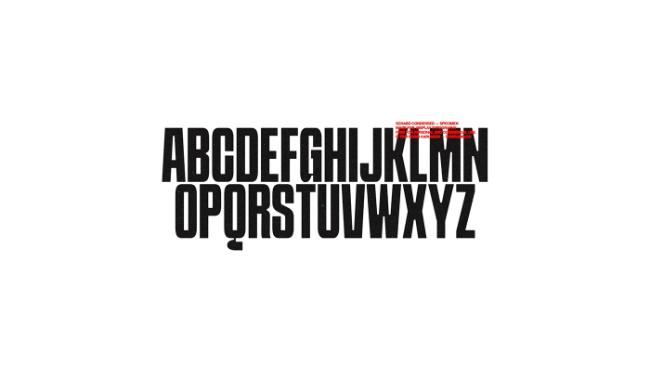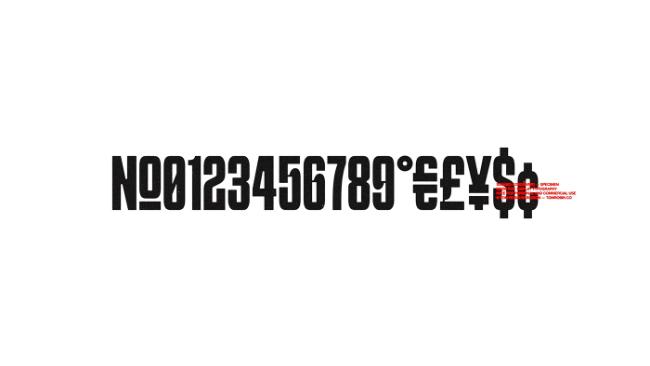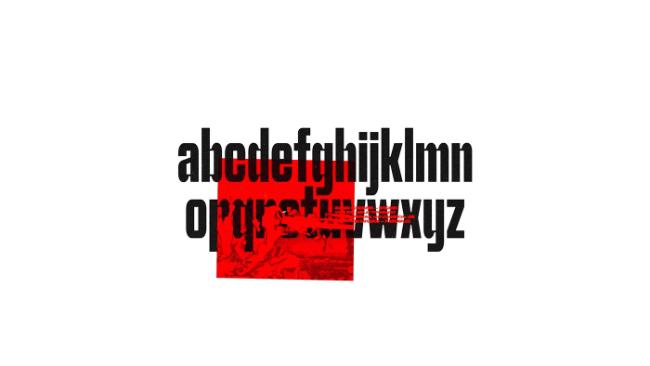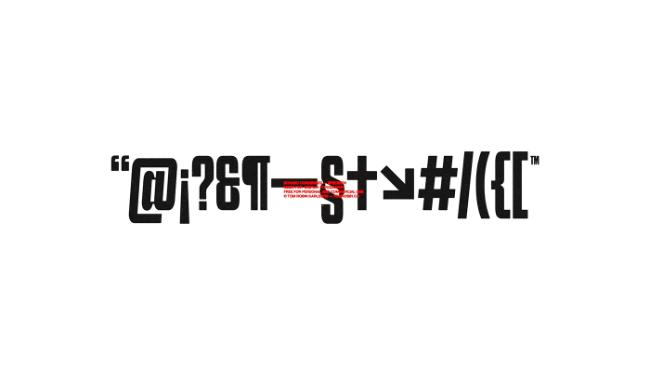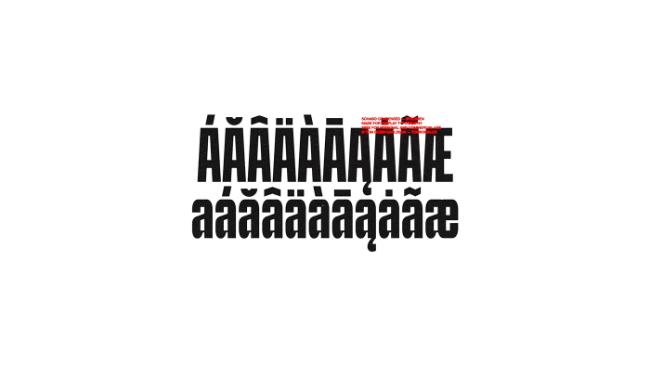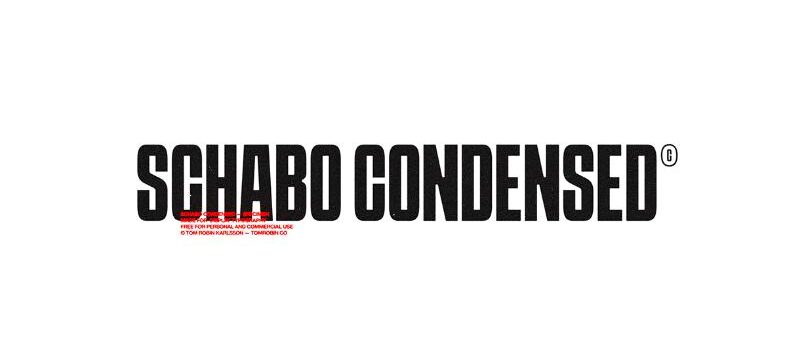
Schabo Condensed operates on a fundamental principle that many designers overlook: sometimes less truly is more. This typeface doesn’t demand attention through flashy serifs or exaggerated curves. Instead, it earns respect through its disciplined approach to space and form. The condensed nature of the font creates a vertical emphasis that draws the eye upward, making it particularly effective for headlines and display text where impact needs to be achieved within limited horizontal space.
The character set reveals a careful balance between geometric precision and organic warmth. Each letterform has been meticulously crafted to maintain readability while maximizing spatial efficiency.
The slightly compressed width doesn’t sacrifice legibility – rather, it creates a sense of urgency and modernity that feels particularly relevant in our information-dense digital age.